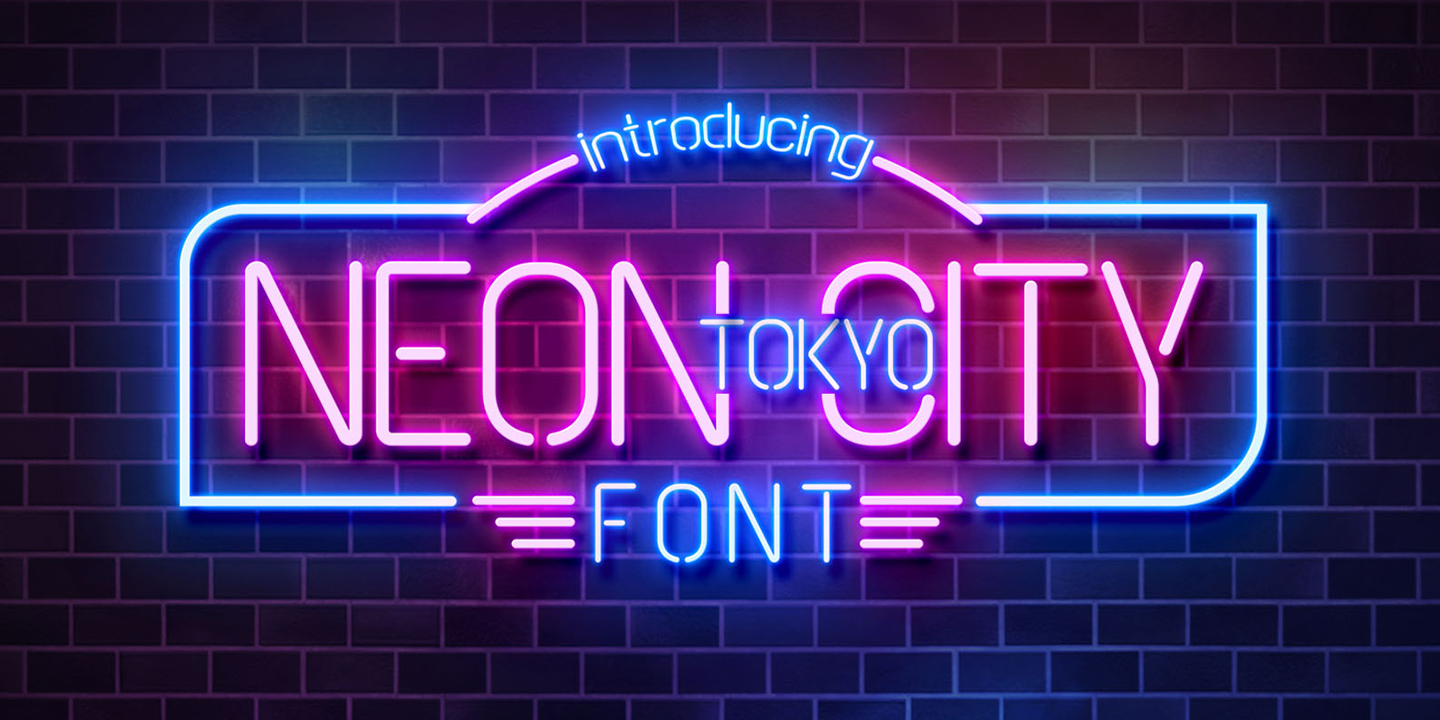
Neon Tokyo City Font is perfect for cyberpunk gaming interfaces, futuristic movie posters, electronic music album covers, nightclub branding, tech startup logos, anime convention materials, LED display advertising, virtual reality experiences, synthwave art projects, and dystopian sci-fi book covers.
What makes Neon Tokyo City Font exciting is its electrifying energy and cyberpunk aesthetics that instantly transport viewers into the neon-soaked streets of futuristic Tokyo. This captivating typeface captures the essence of Japan's technological metropolis with its glowing character forms and digital-age styling that evokes midnight cityscapes illuminated by countless neon signs. The font's electric character creates an immediate connection to cutting-edge technology and urban nightlife culture.
Neon Tokyo City Font family includes regular weight with distinctive neon-inspired character designs featuring glowing effects and futuristic proportions. The typeface maintains excellent readability while preserving its unique cyberpunk personality through carefully crafted letterforms that seem to pulse with electric energy like authentic Tokyo street signage.
Creative professionals choose Neon Tokyo City Font Free Download for projects requiring authentic cyberpunk atmosphere and futuristic urban appeal. This remarkable typeface brings the electric energy of Tokyo's neon districts to digital communications, combining Japanese design aesthetics with sci-fi innovation to create unforgettable brand experiences. The thoughtfully designed characters ensure stunning visual impact across all applications, making it essential for gaming companies, entertainment brands, and any organization seeking to communicate the thrilling possibilities and technological advancement found in cyberpunk culture and futuristic urban environments.